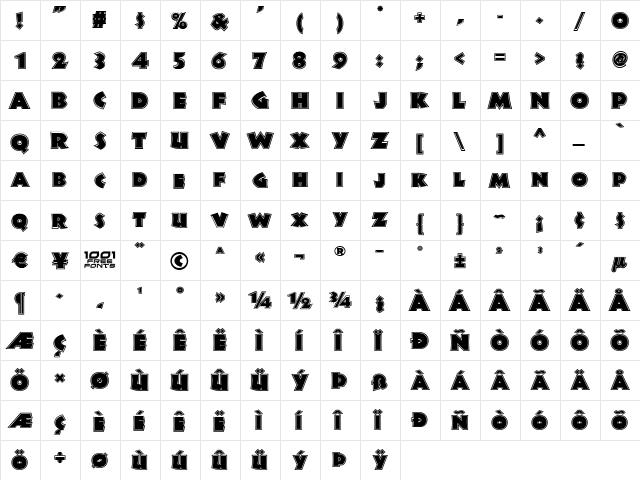
Jungle Fever Inline NF Regular Font Preview
Jungle Fever Inline NF Regular
Jungle Fever Inline NF Regular Font Details
Design Context for Jungle Fever Inline NF Typeface
Jungle Fever Inline NF brings ornamental detail and strong personality to headlines and identities, where visual impact matters more than quiet functionality.
Font Pairing: Pair with a clean neutral sans-serif for body copy to let Jungle Fever Inline NF's character lead without overwhelming the composition.
Pro Tip: Treat Jungle Fever Inline NF as the centrepiece of your typographic hierarchy. One strong heading set in a decorative face can carry an entire layout.